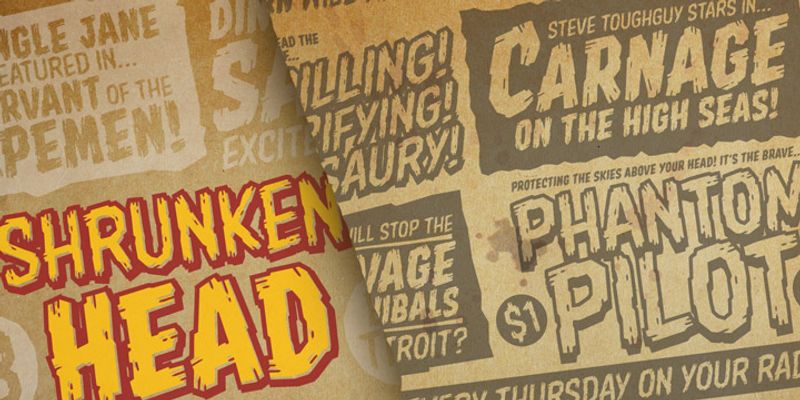
Shrunken Head BB is a classic, distressed comic book title font. The family consists of regular, italic, light, and light italic. Comprehensive European characters are included.